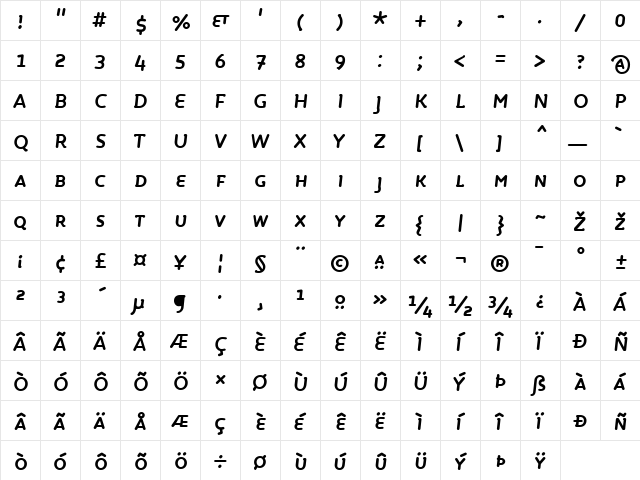
Roice-BoldItalicSC Regular
| Foundry | Alex Scholing, published by FontShop International for the FontFont library |
Design Context for Roice-BoldItalicSC Typeface
Roice-BoldItalicSC is a composed and adaptable typeface that performs quietly and consistently across a wide range of design contexts. The slanted form adds forward momentum and visual energy. Its bold stroke weight gives it real presence on the page.